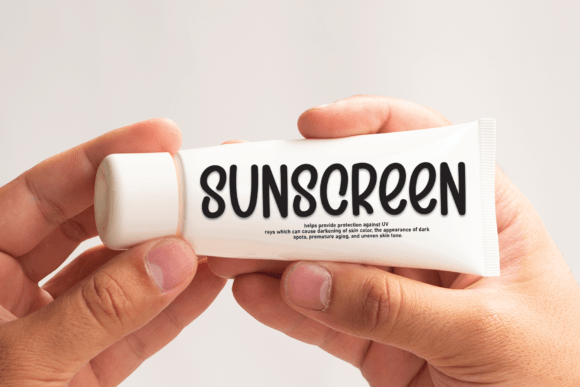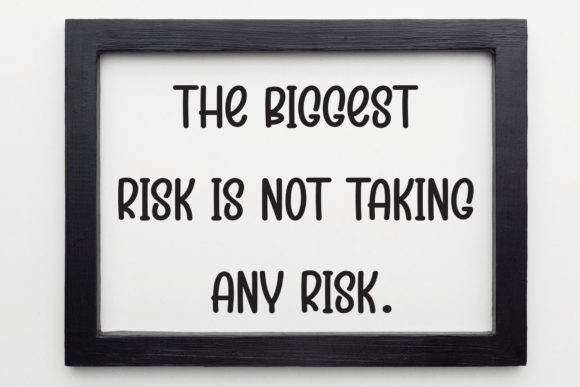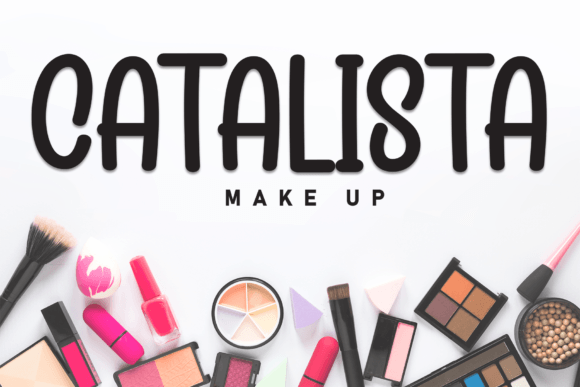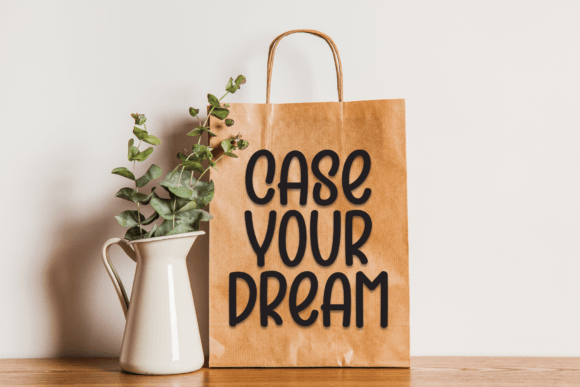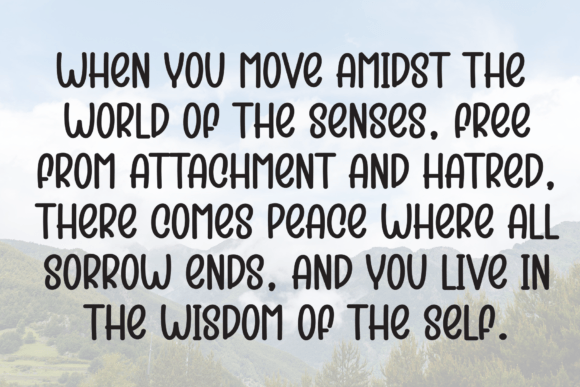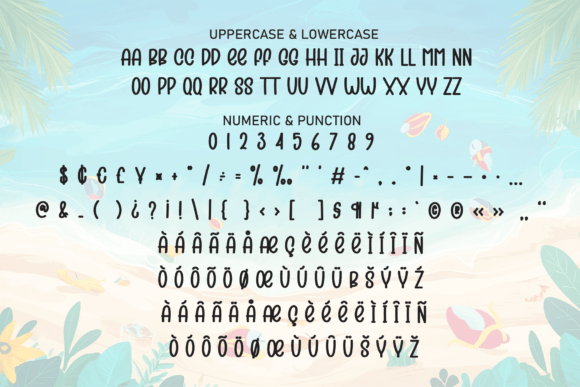
Unleash the Fun in Your Designs
Do you remember the feeling of scribbling in the sand at the beach, or writing with a bright pink marker on a summer postcard? That carefree, playful spirit is exactly what the Creative Summer Font embodies. This charming handwritten display font is designed to evoke the warmth and joy of the sun-kissed season.
Perfect for summer-themed projects, invitations, and anything that needs a cheerful touch, the Creative Summer Font is a valuable addition to any designer’s toolkit. Its casual, fun letters are sure to bring a smile to your clients’ faces and make their projects stand out from the crowd.
Creative Summer Font Key Features
- Unique Characteristics: The font features a unique, hand-drawn design with subtle imperfections, giving it a personal and creative touch.
Designer Review: Creative Summer Font
As a designer, I was excited to dive into the Creative Summer Font. Here’s my honest review:
- The font’s unique, playful feel is perfect for summer-themed projects or any design that needs a carefree vibe.
- The variety of weights and styles included in the font make it versatile for different design applications.
- The font’s legibility is good, making it easy to read, even at smaller font sizes.
- The font’s aesthetics may be too whimsical for more serious or formal designs.
- The font’s limited language support may be a concern for designers working with non-English text.
- The font’s scalability can be a bit rough at very large or very small font sizes.
Overall, the Creative Summer Font is a fun, summery font that’s perfect for casual designs or projects that need a lighthearted feel. While it may not be suitable for all design applications, it’s a great addition to any designer’s toolkit for the right projects. With a bit of finesse, it can add a playful touch to any design.
Use the “Creative Summer Font” for:
– Summer-themed designs, such as beach or pool party invitations.
– Travel or adventure-themed designs, such as travel brochures or adventure logos.
For best results, use the font in conjunction with bright and colorful graphics and images.